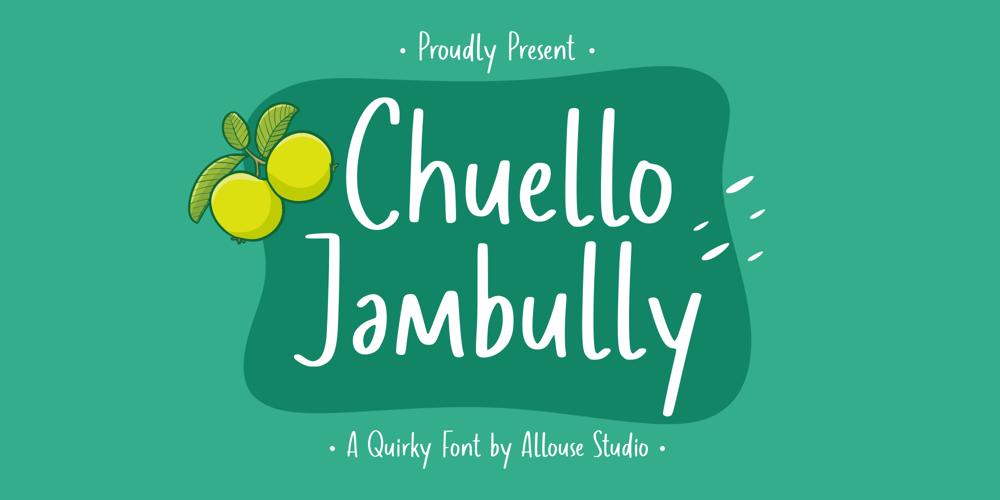
Chuello Jambully Font Family was designed by Fachrizal Yusuf and published by Allouse Studio. Chuello Jambully contains 1 styles and family package options. Proudly Presenting, Chuello Jambully A Quirky Font.Chuello Jambully is perfect for any titles, logo, product packaging, branding project, megazine, social media, wedding, or just used to express words above the background.Chuello Jambully also come with Multi-Lingual Support.Enjoy the font, feel free to comment or feedback, send me PM or email. Thank You!